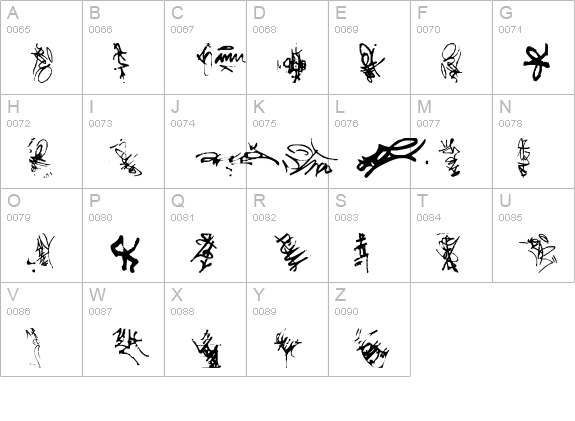
Illiterate Font Details
Introducing Illiterate font, a stunning typeface that effortlessly captures the essence of creativity and uniqueness. With its distinct and eye-catching design, Illiterate font is perfect for bringing your projects to life and making a lasting impression. What sets Illiterate font apart is its ability to evoke a sense of mystery and intrigue, while still maintaining readability and legibility. Its intricate letterforms intertwine harmoniously, creating an engaging visual experience that will captivate your audience. But that's not all - Illiterate font is also free! Yes, you heard it right. This incredible font is freely available to download at FontsMarket.com, making it accessible to everyone. Whether you're a designer, artist, or simply someone looking to add a touch of elegance to your personal projects, Illiterate font is here to cater to your needs. With its extensive character set, Illiterate font provides endless possibilities for creative expression. Use it to enhance your branding, elevate your social media posts, or add a touch of sophistication to your website design. The versatility of Illiterate font knows no bounds. Furthermore, Illiterate font is compatible with both Mac and Windows operating systems, ensuring seamless integration into your existing workflow. Whether you're a beginner or a seasoned professional, this font is user-friendly and easy to install, making it a hassle-free experience for all. So, don't miss out on the opportunity to elevate your projects with Illiterate font. Download it for free at FontsMarket.com and unlock a world of endless possibilities. Step into a realm of creativity and let Illiterate font be your trusted companion in all your design endeavors.